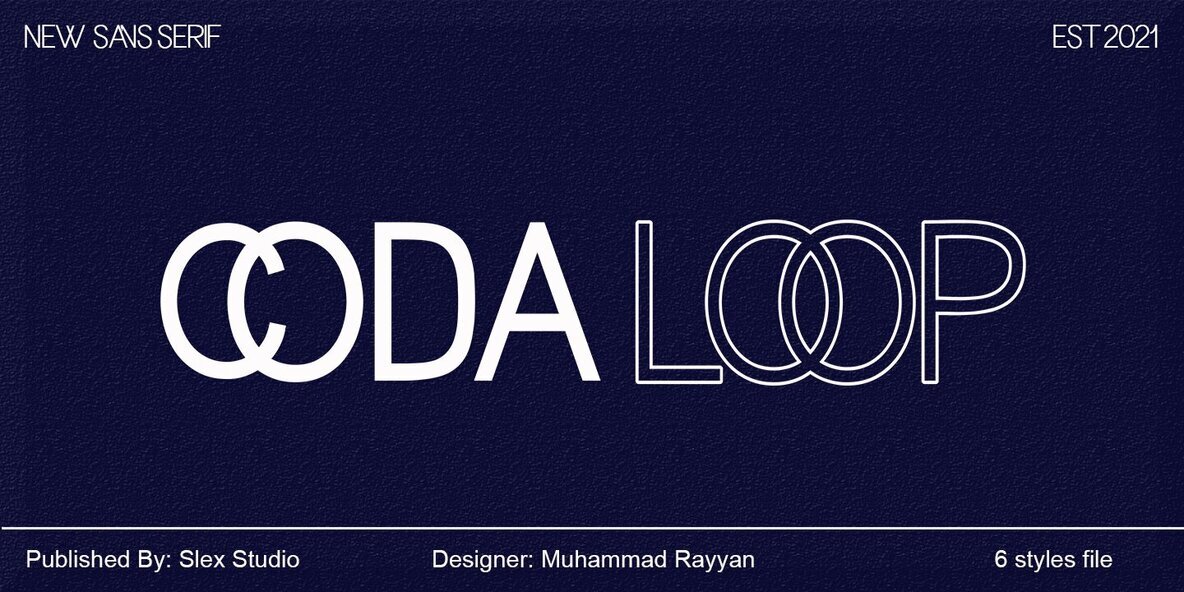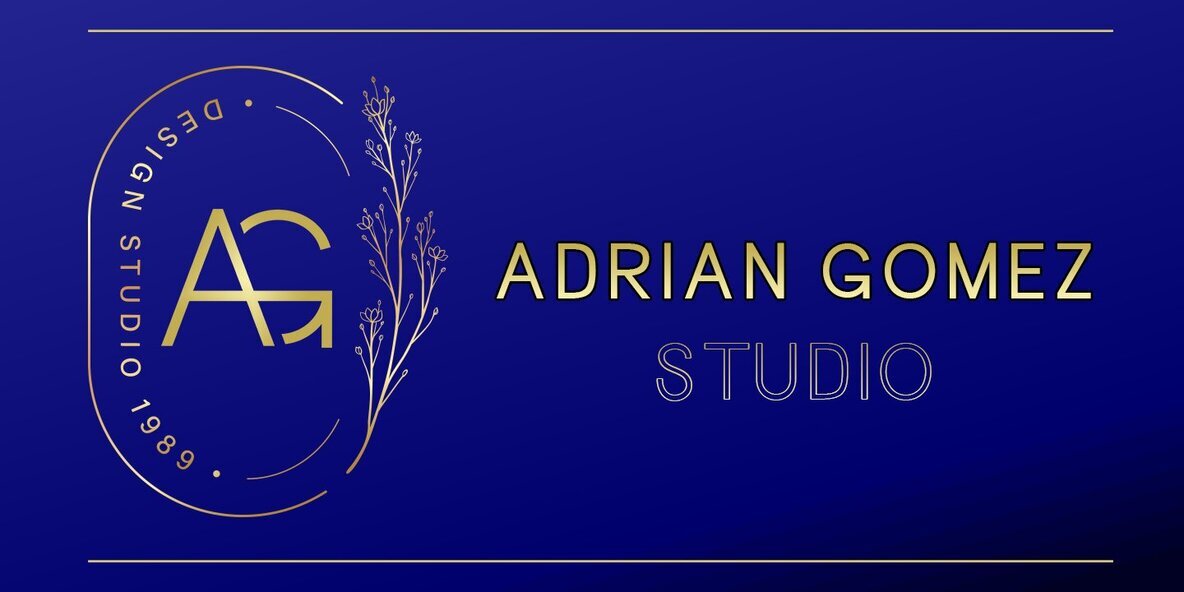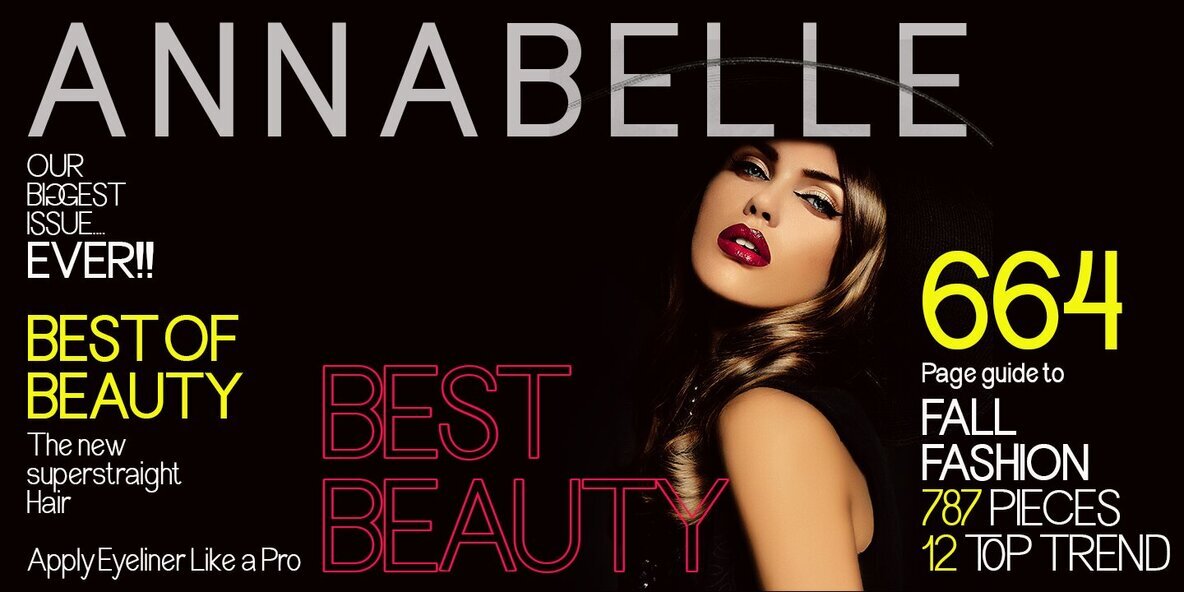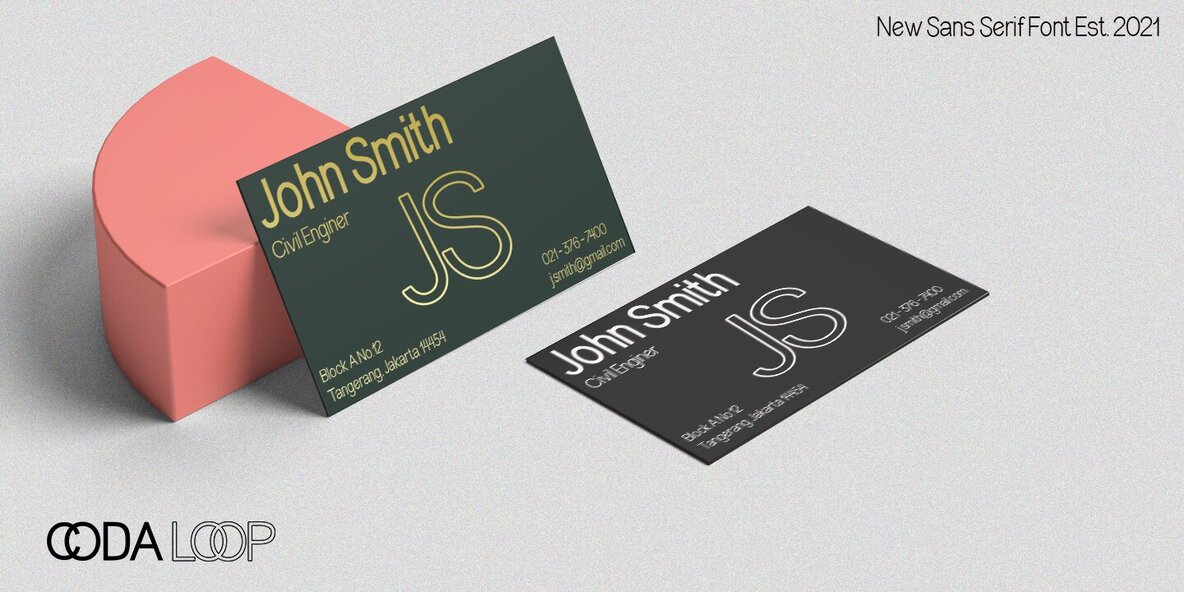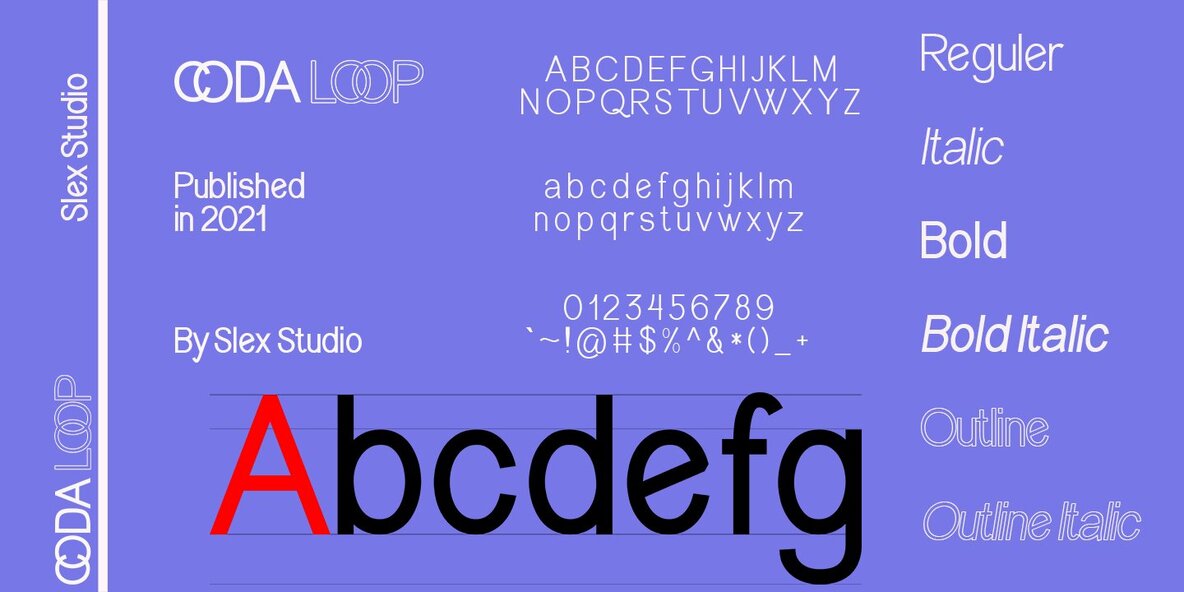
Coda Loop Font
CODA LOOP
CODA LOOP Italic
CODA LOOP Bold
CODA LOOP Italic Bold
CODA LOOP Italic Outline
CODA LOOP Outline
Coda Loop, crafted meticulously by Slex Studio, is a versatile sans serif font exuding elegance and simplicity with its balanced line sizes. Inspired by popular block letter logo designs, this font is your go-to choice for a myriad of design needs. From logotypes to letterheads, formal letters to newspaper headlines, and posters to clothing designs and labels, Coda Loop seamlessly fits into any creative endeavor. Featuring a robust character set, you’ll find uppercase, lowercase, numbers, and punctuation, along with an extensive range of variations for each character, including common ligatures and additional strokes for customization. Coda Loop also boasts PUA encoding, allowing easy access to alternative characters with your preferred software, such as Character Map, Font Book, or PopChar.Coda Loop: Modern Sans Serif Font